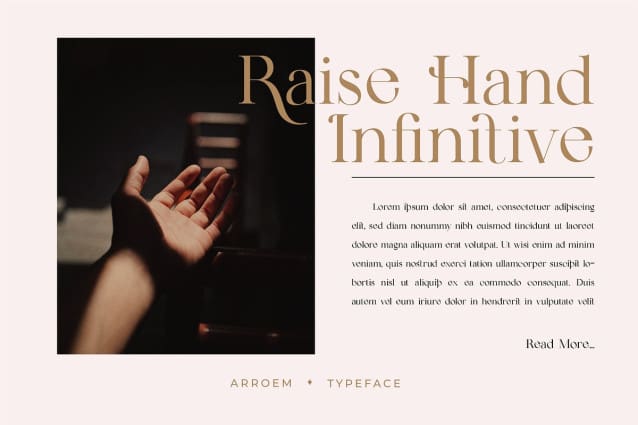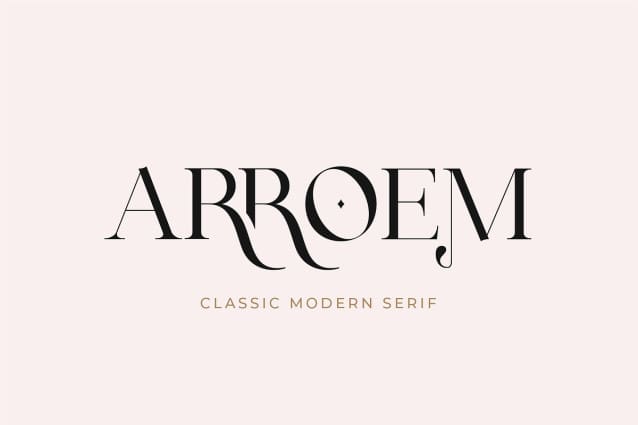
Arroem Font
Arroem Font is a mixing between stylish modern with classic font with ligature-rich Serif. Minimalist character that allowing you to easily edit the designs. It is perfect for branding, logo, wedding invites and cards, and maybe for some project.